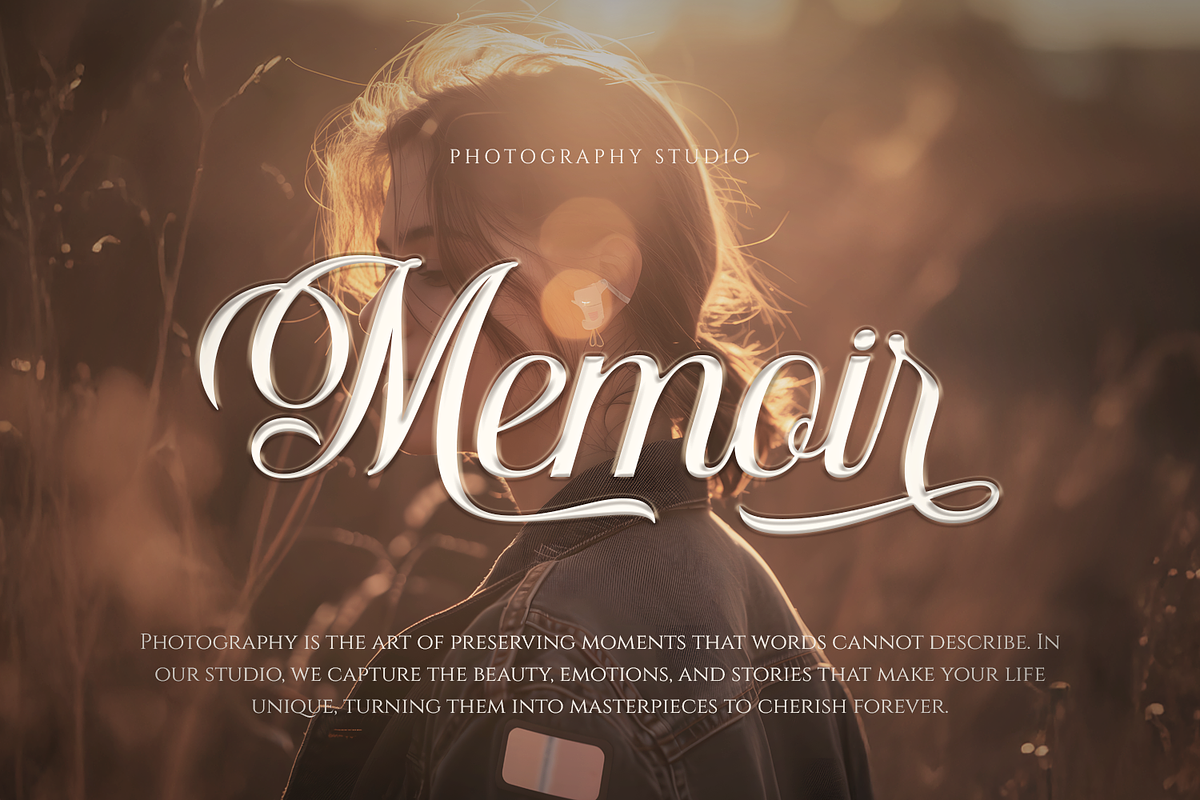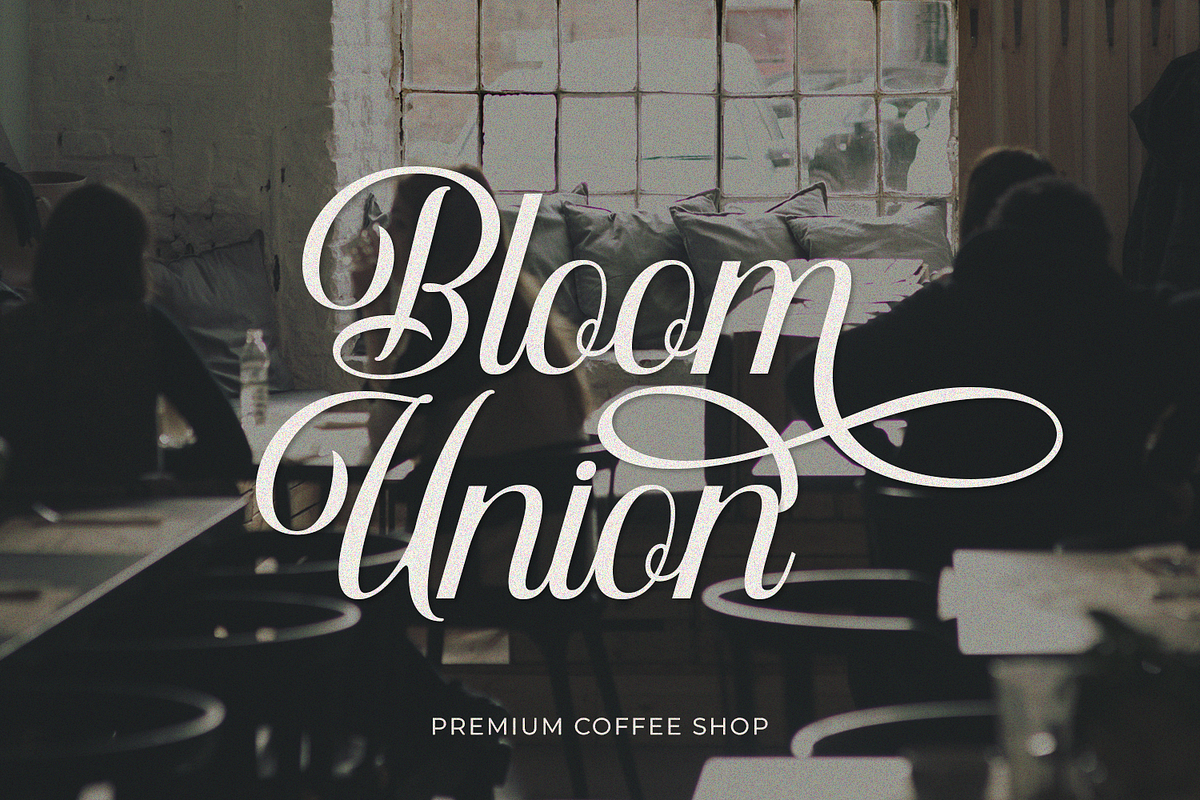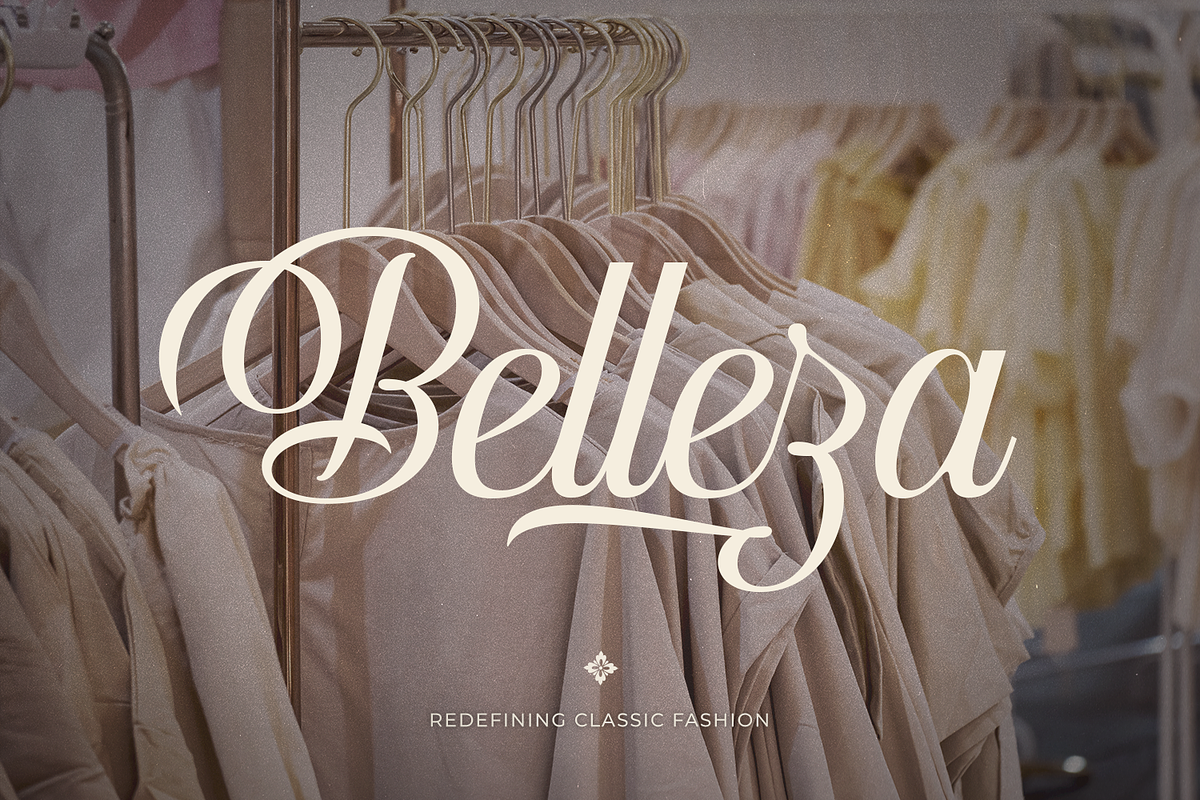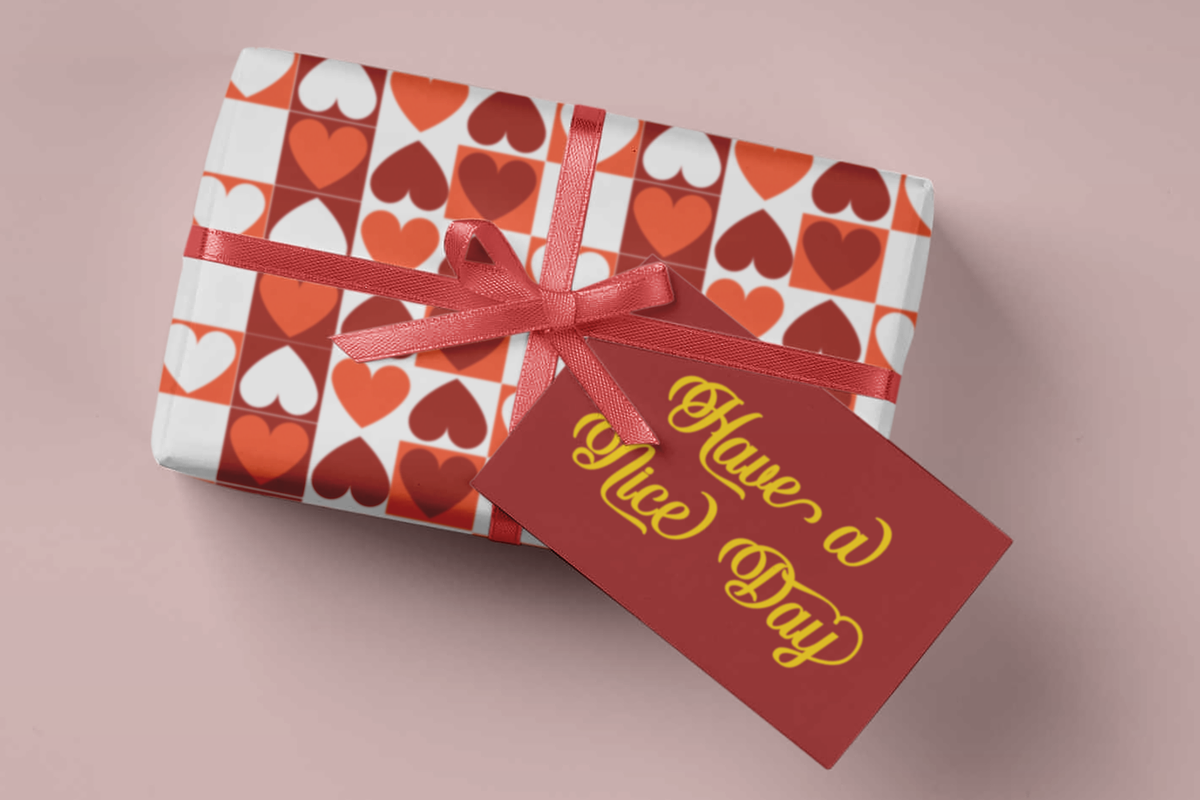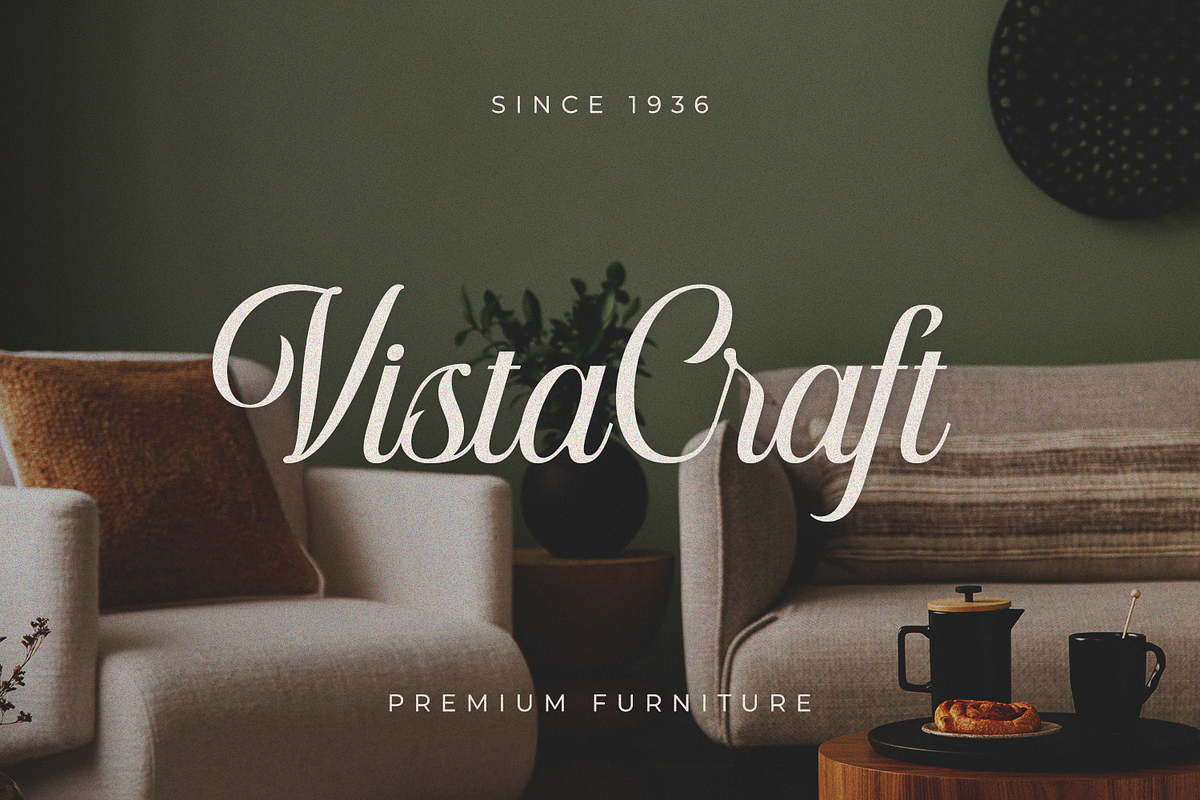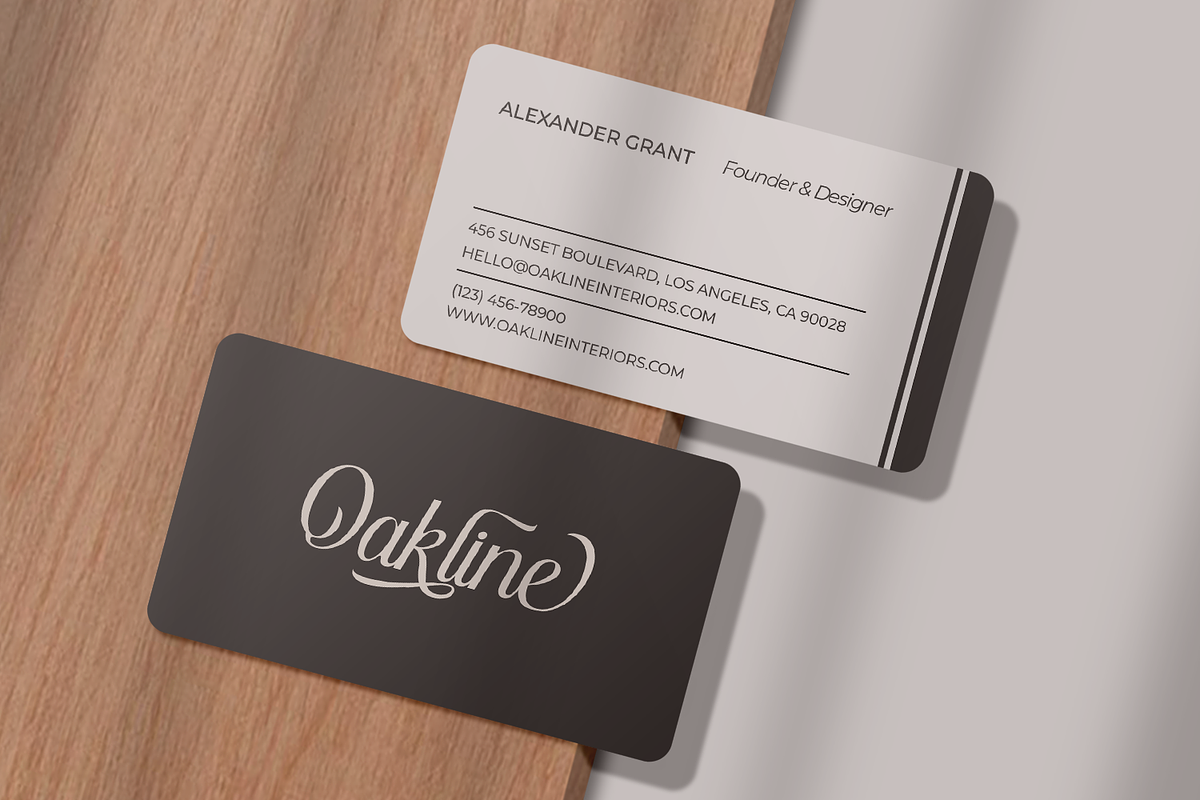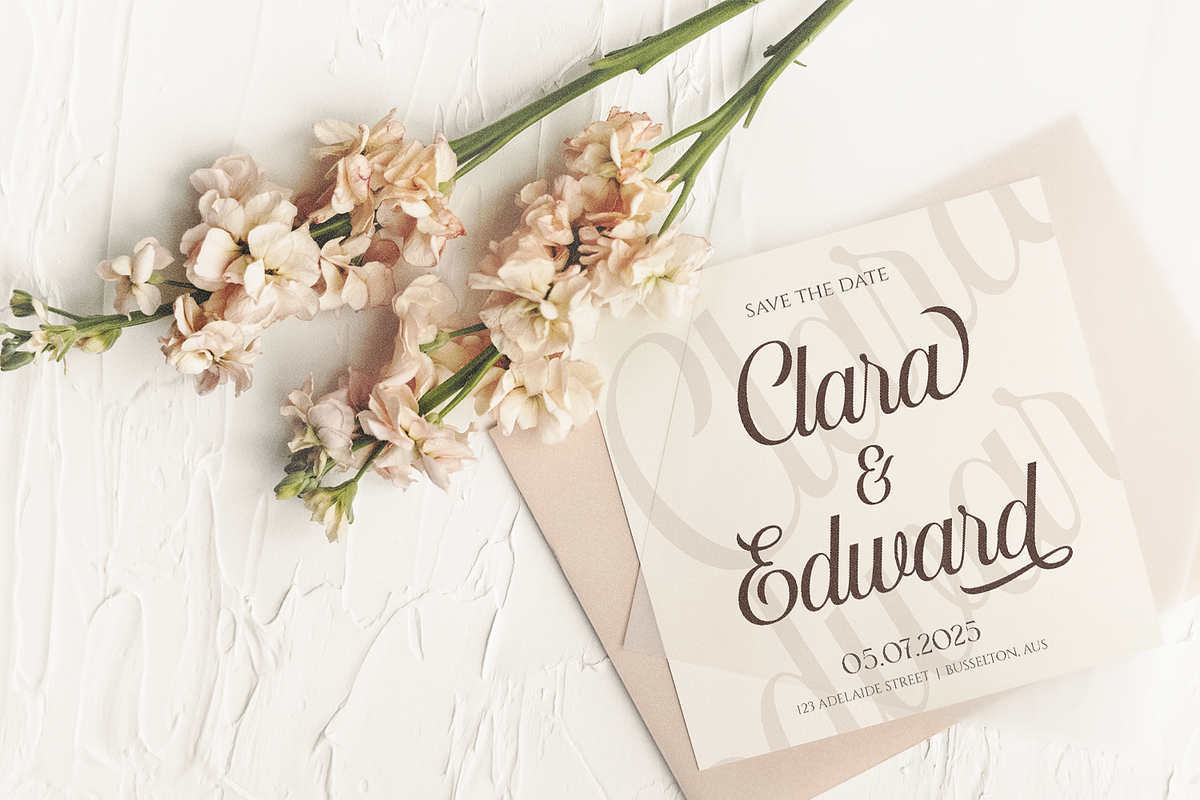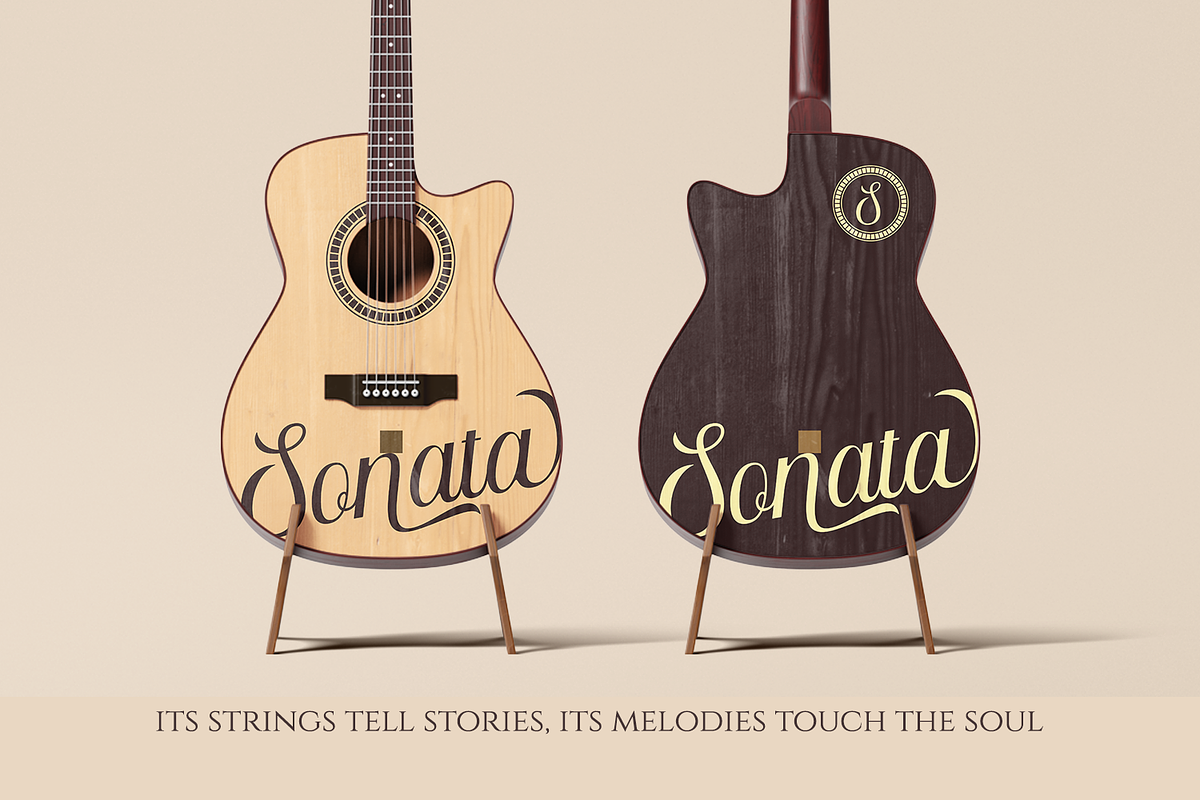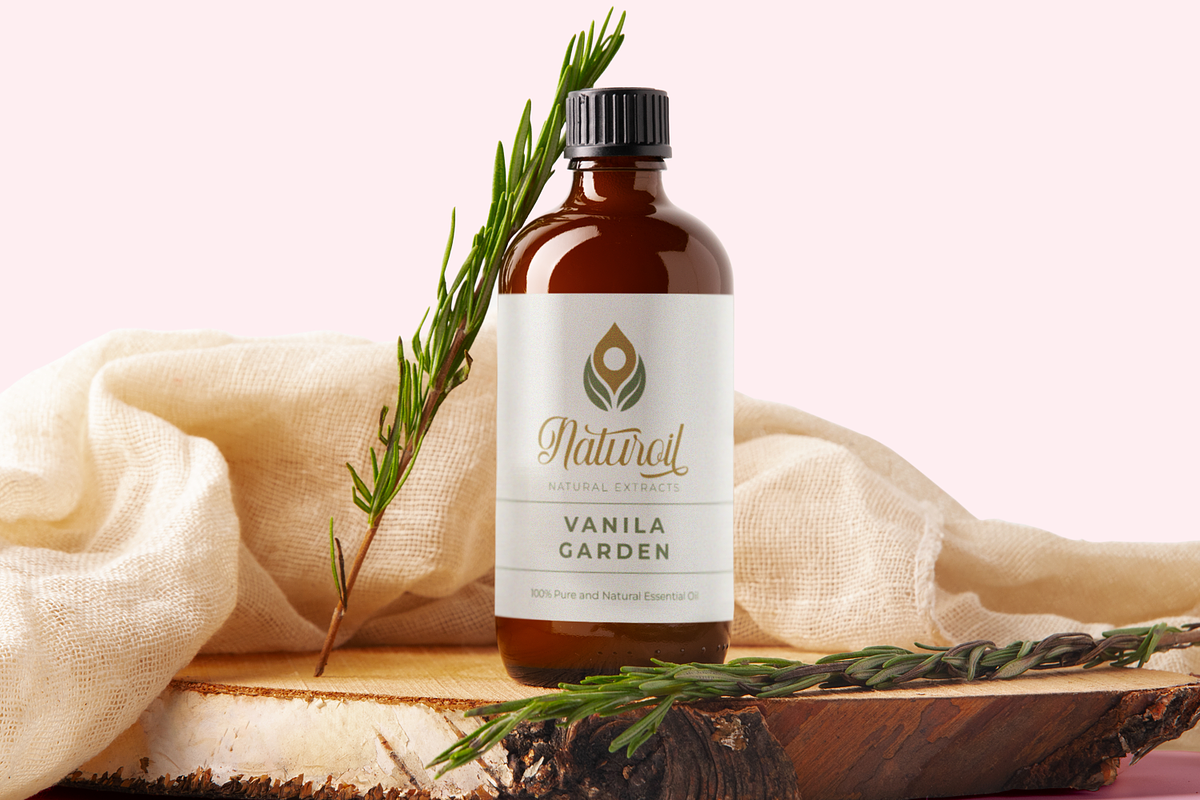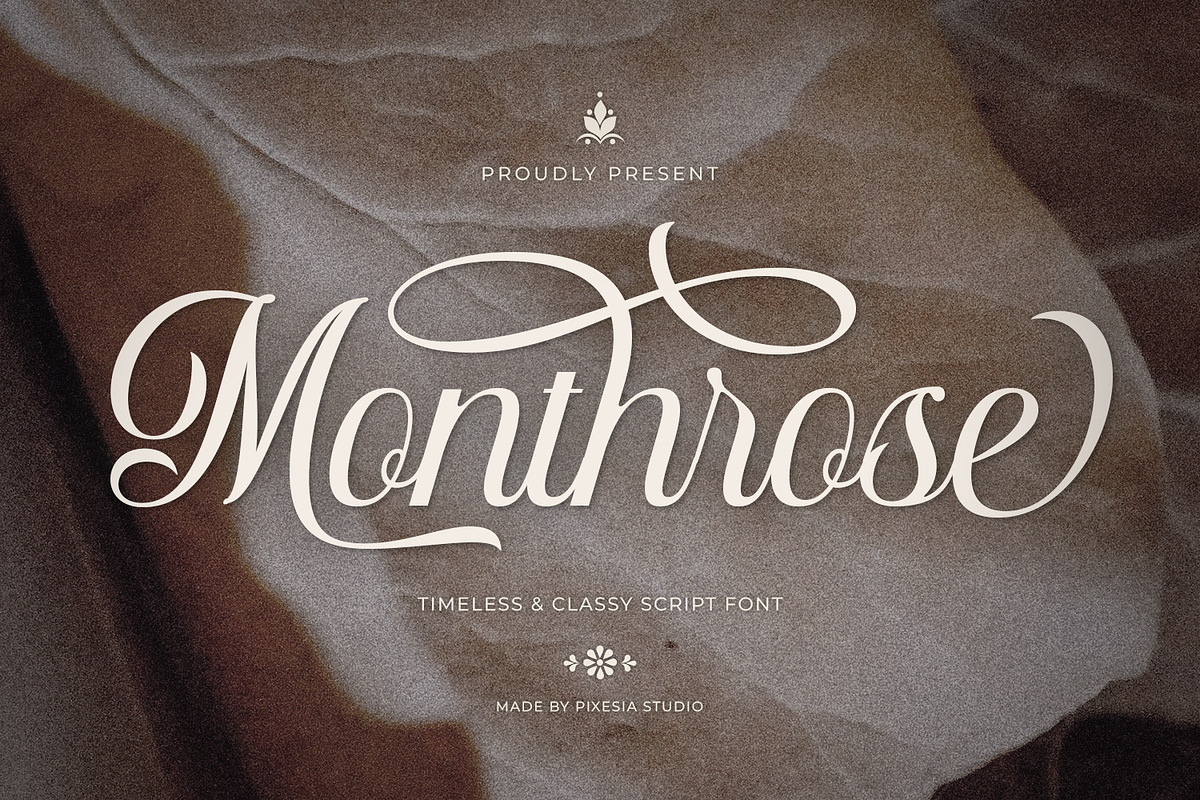
Monthrose - Modern Cursive Script
Introducing Monthrose - Modern Calligraphy Script Font
Monthrose is a elegance modern calligraphy font with flowing letterforms.This font combines a handwritten feel with a touch of luxury, ideal for adding a personal, premium quality to any design.
Monthrose is perfectly suited for branding, logotypes, wedding invitations, romantic quotes, labels, social media posts, advertisements, product packaging, product designs, label, photography, watermark, invitation, stationery and seeking a premium quality, luxury, and aesthetic touch.